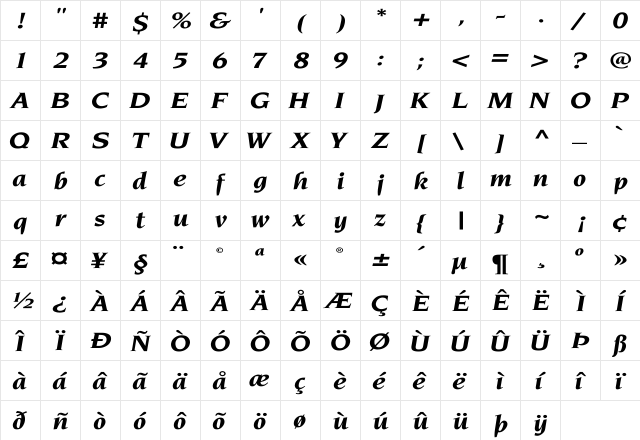
Neuvarese-BoldItalic Wd Regular Font Preview
Neuvarese-BoldItalic Wd Regular
Neuvarese-BoldItalic Wd Regular Font Details
Design Context for Neuvarese-BoldItalic Wd Typeface
Neuvarese-BoldItalic Wd is a composed and adaptable typeface that performs quietly and consistently across a wide range of design contexts. The slanted form adds forward momentum and visual energy. Its bold stroke weight gives it real presence on the page.
Pro Tip: Try Neuvarese-BoldItalic Wd for annotation and caption copy alongside an upright companion — the contrast in angle creates a dynamic but ordered typographic system.